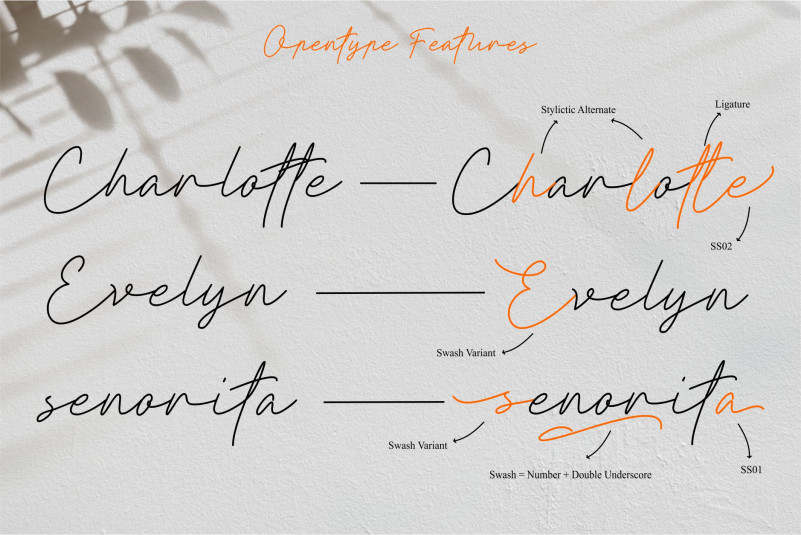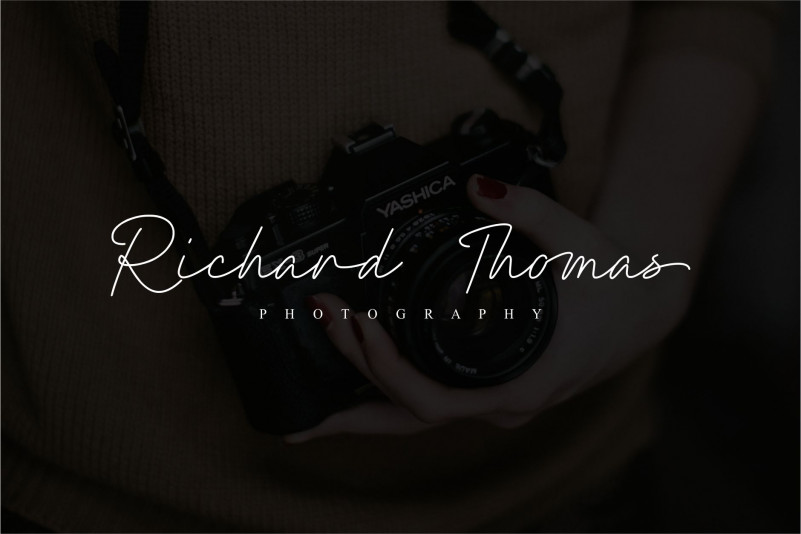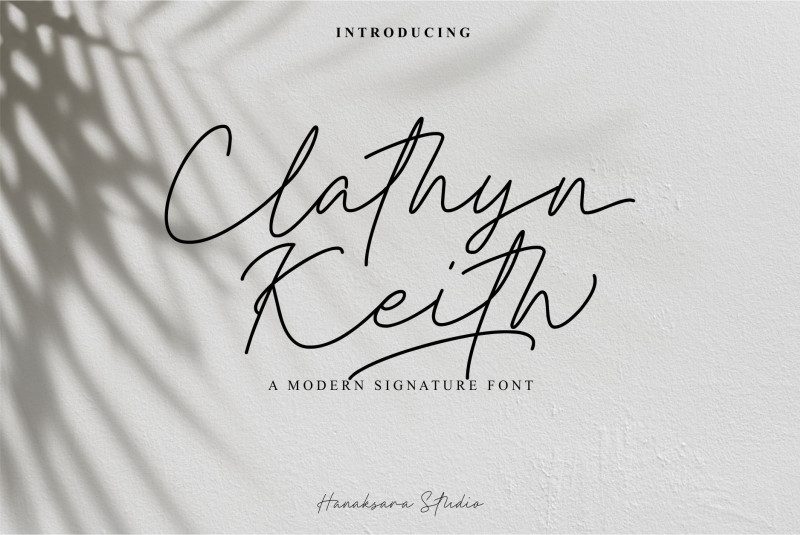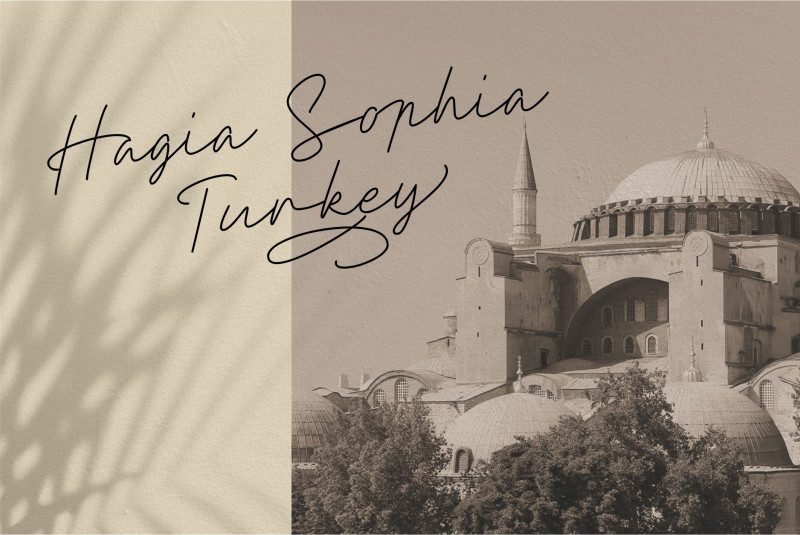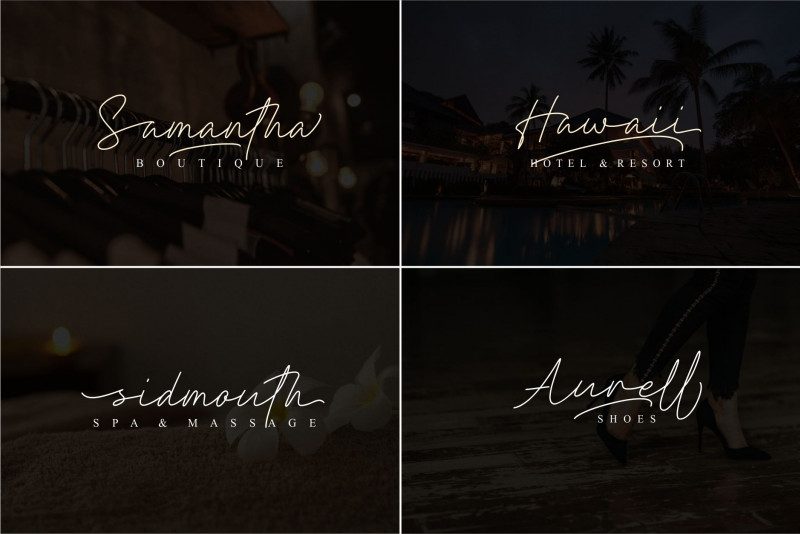
Say hello to Clathyn Keith Signature Font. This font is very suitable for branding. In full version this font was included with dozens of ligatures, several sets of Stylistic Alternate, Swashes and underlines!